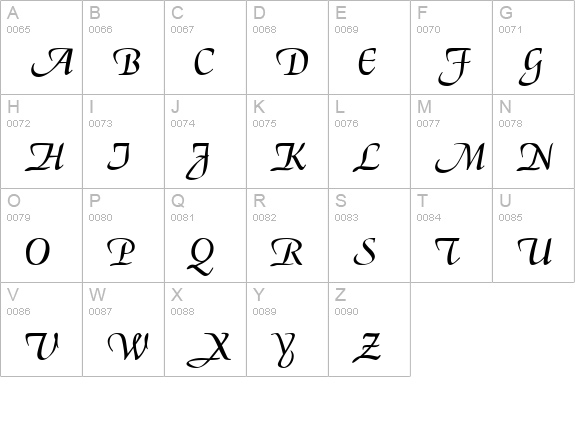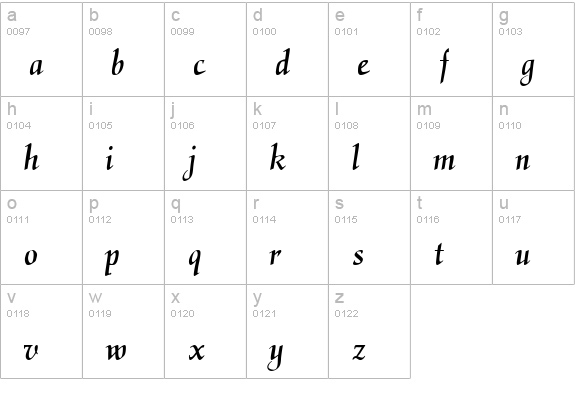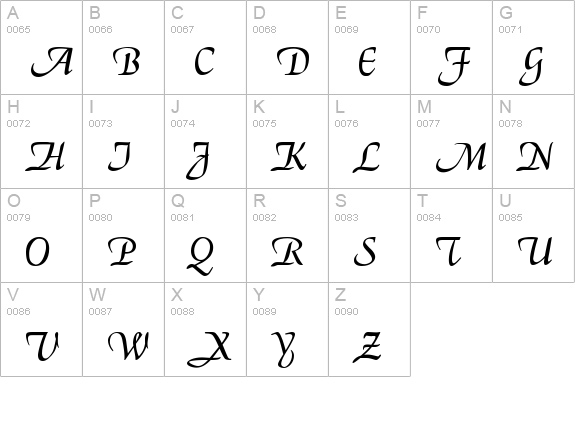
Deloise Normal is the standard, neutral variant in the Deloise typeface family \xE2\x80\x94 well suited to general body text, paragraphs, and standard typographic work.
Deloise Normal font is a versatile and elegant typeface that strikes the perfect balance between modernity and classic appeal. Its clean lines and smooth curves make it ideal for a wide range of design projects, from branding to editorial design. This font exudes sophistication and professionalism, making it a go-to choice for designers looking to make a lasting impression. What sets Deloise Normal font apart is not only its timeless design, but also the fact that it is completely free to download. You can easily access this font at FontsMarket.com, where you can add it to your collection without any cost. Whether you're working on a personal project or a client's design, Deloise Normal font provides the perfect touch of refinement and style. Download it today and elevate your designs with this exceptional typeface.